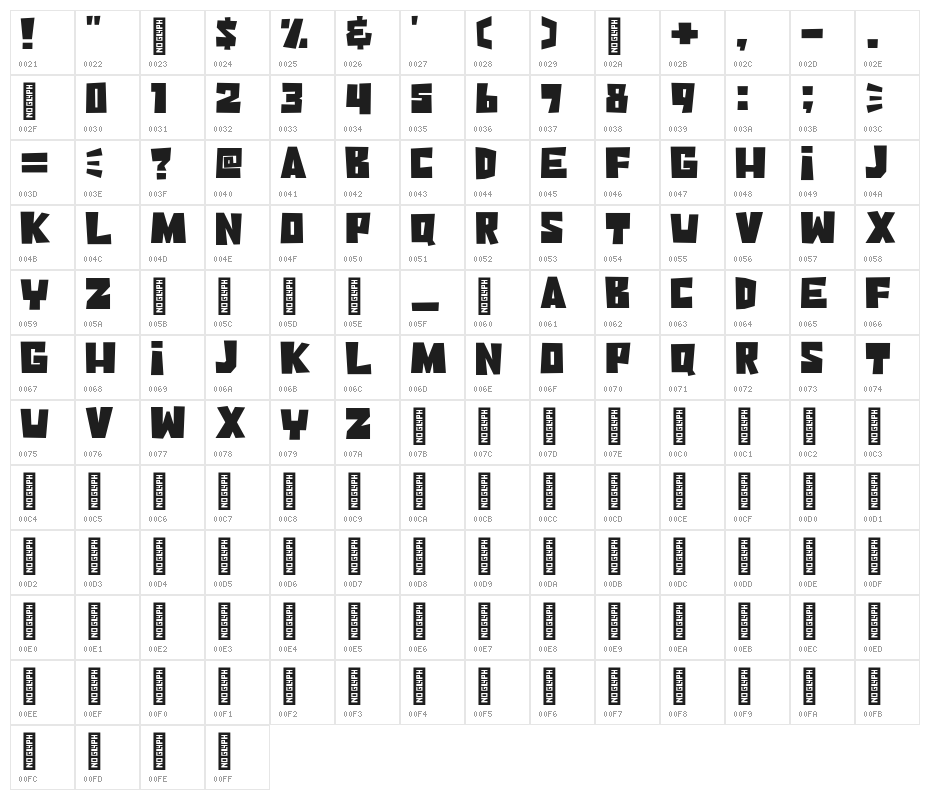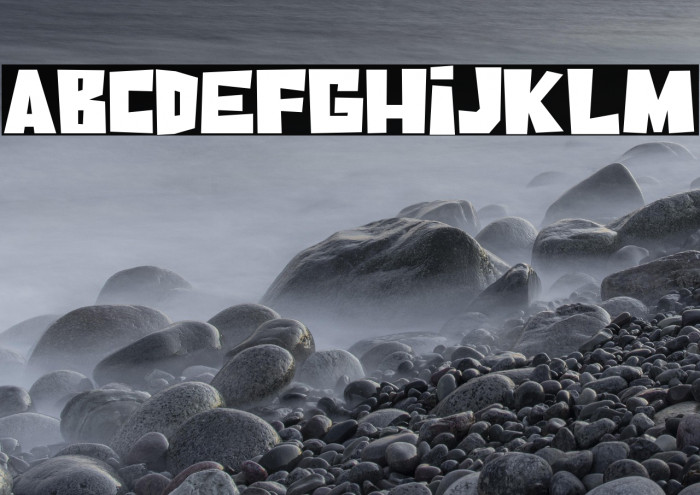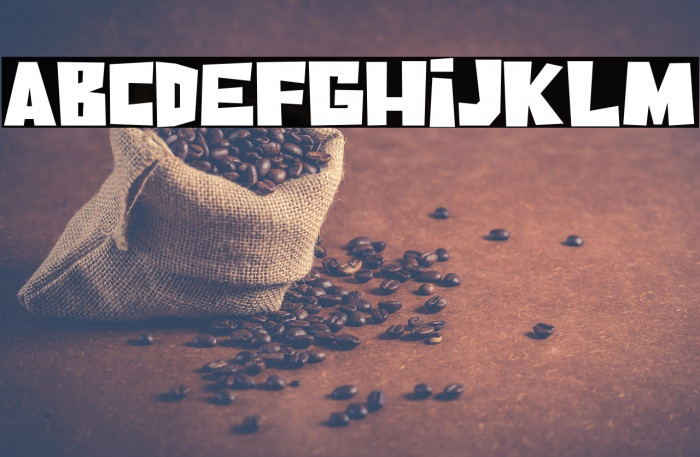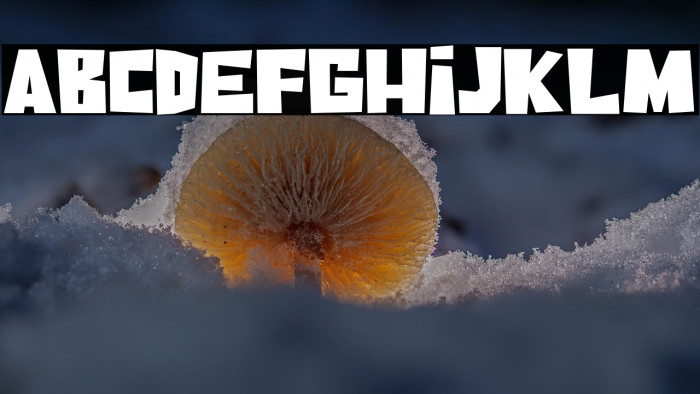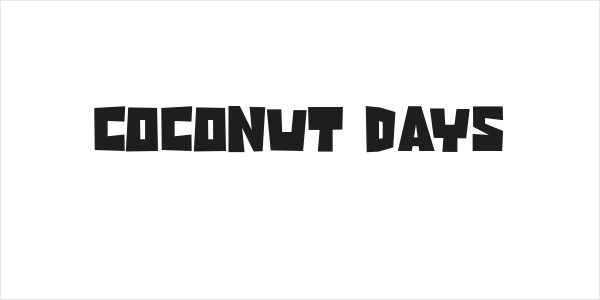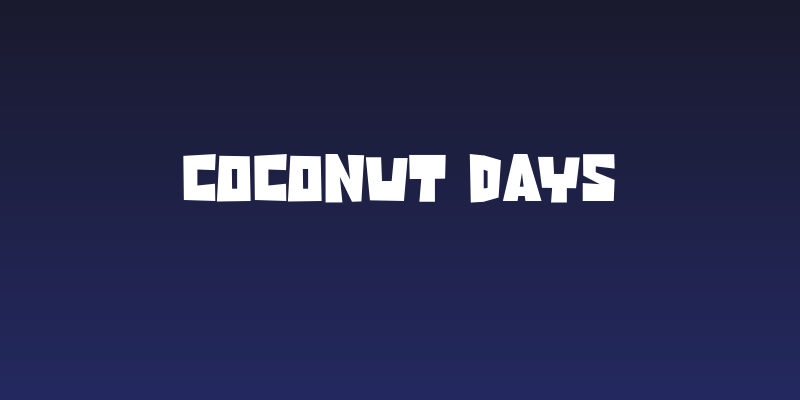
Coconut Days Font
Coconut Days Description
This bold and playful font features a unique, blocky design with a slightly irregular shape, giving it a hand-crafted appearance. The uppercase and lowercase letters share a consistent style, with thick strokes and sharp angles that create a sense of movement and energy. The numbers and special characters maintain this dynamic aesthetic, making the font suitable for eye-catching designs. Its boldness and distinctive character make it ideal for projects that require a strong visual impact. The font's quirky style is reminiscent of retro and vintage designs, yet it maintains a modern edge that can appeal to contemporary audiences.
| Overall Style | Modern, Vintage |
| Proposed Projects | Ideal for posters, logos, headlines, and any design needing a bold, playful touch. |